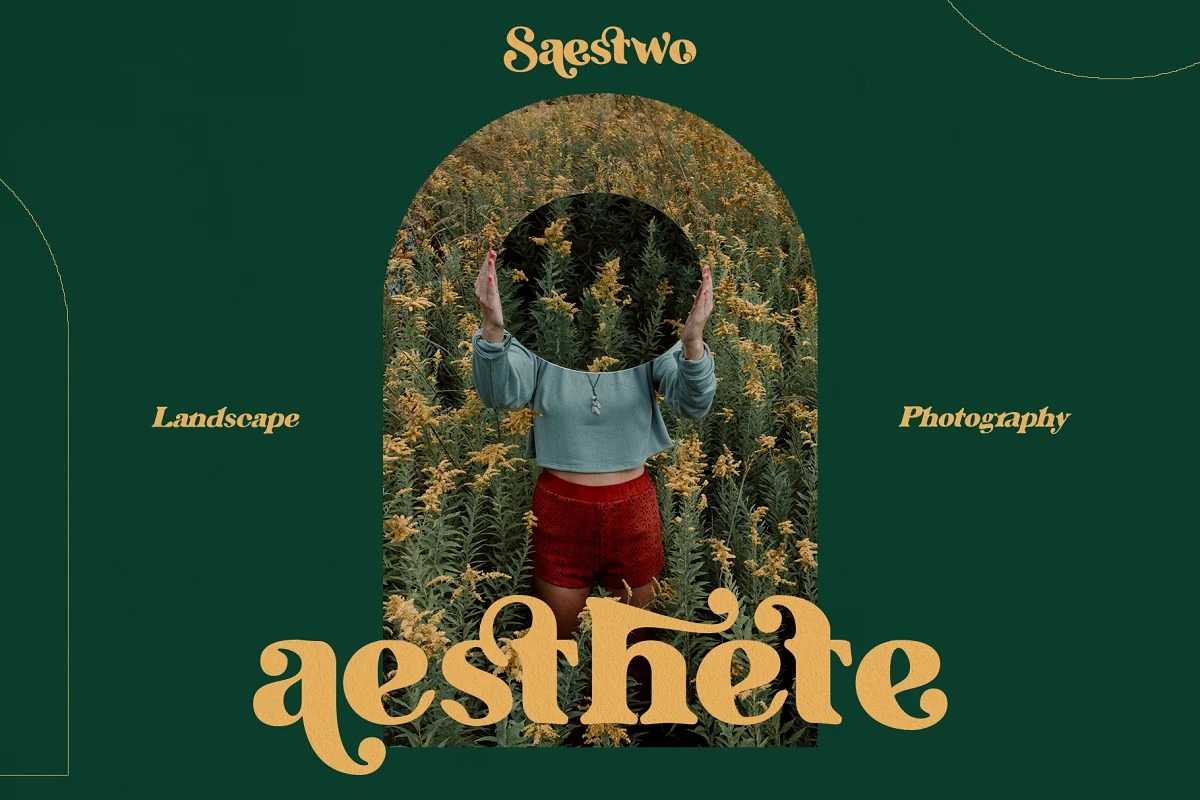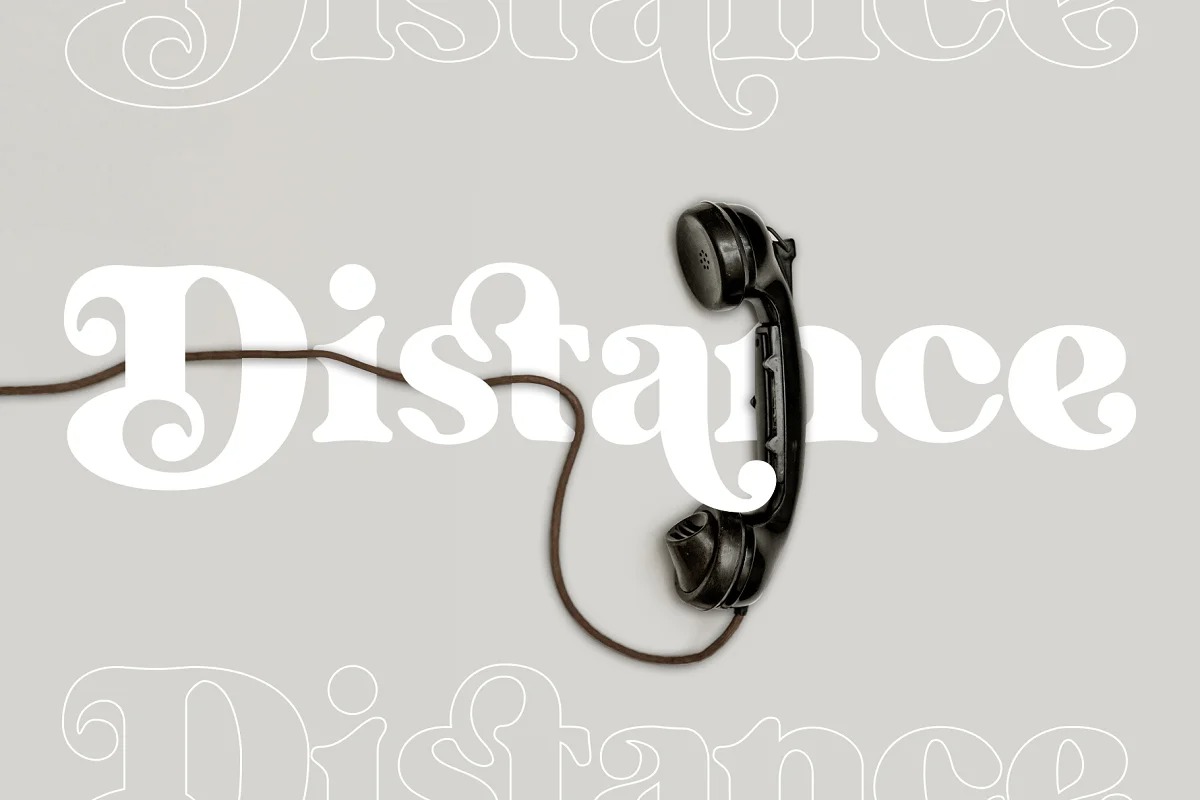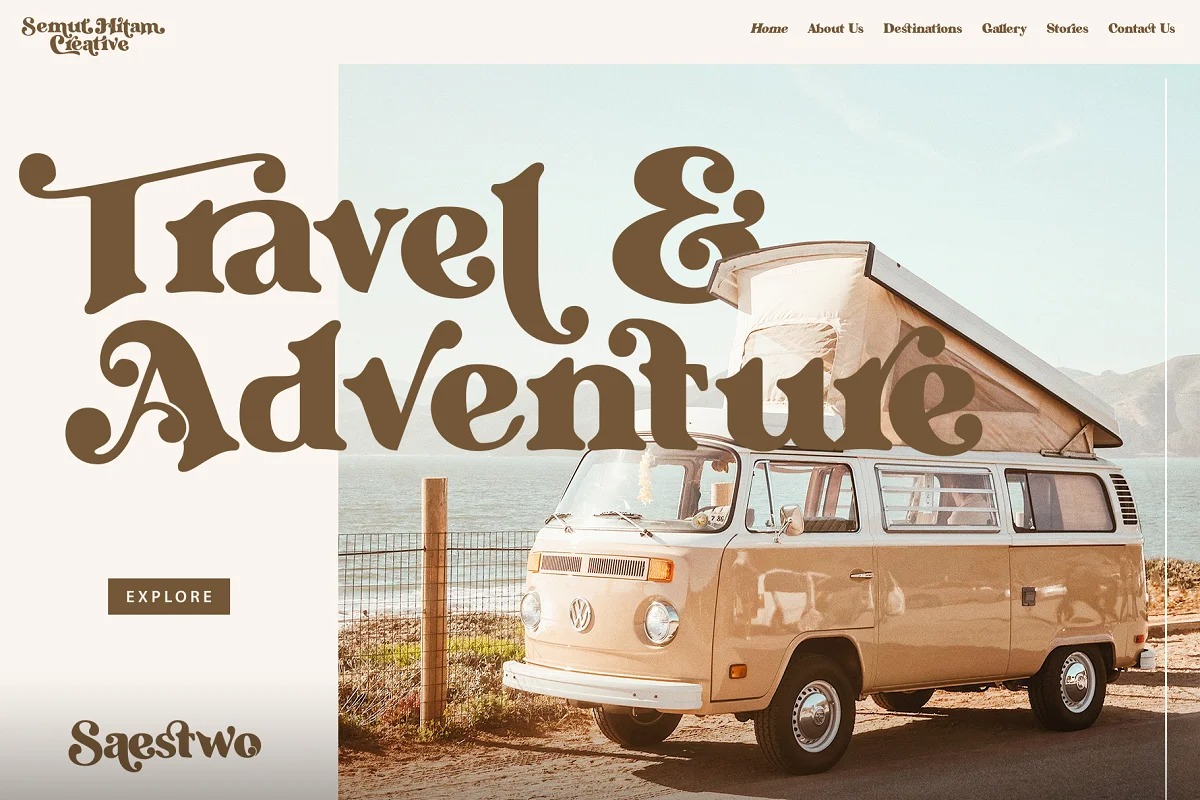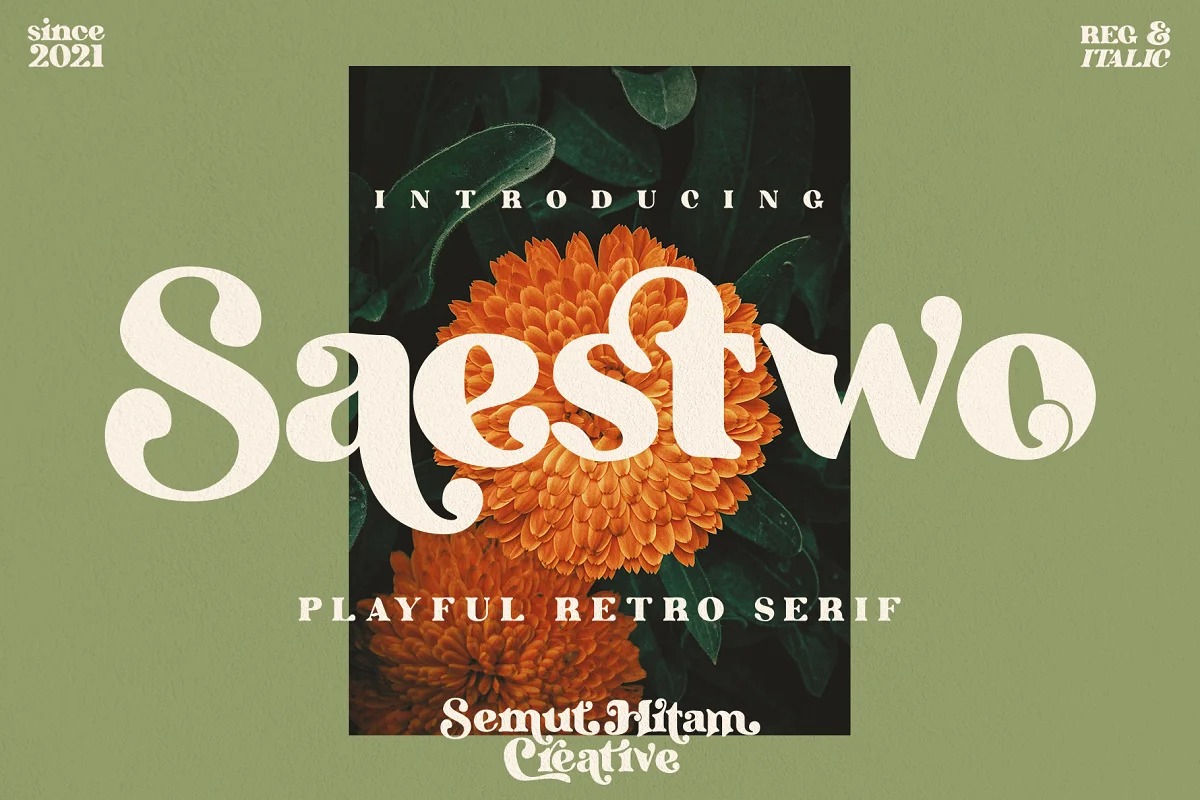
Saestwo Serif Font is a modern & retro bold serif with a soft, rounded finish. Done carefully, creating a curved corner pattern on some corners of the letter so that it looks very fun with a combination of several Alternates and Ligatures that make Saestwo look more playful. Saestwo includes full set of elegant uppercase, lowercase letters, numbers, punctuation, multilingual language, and various ligatures.